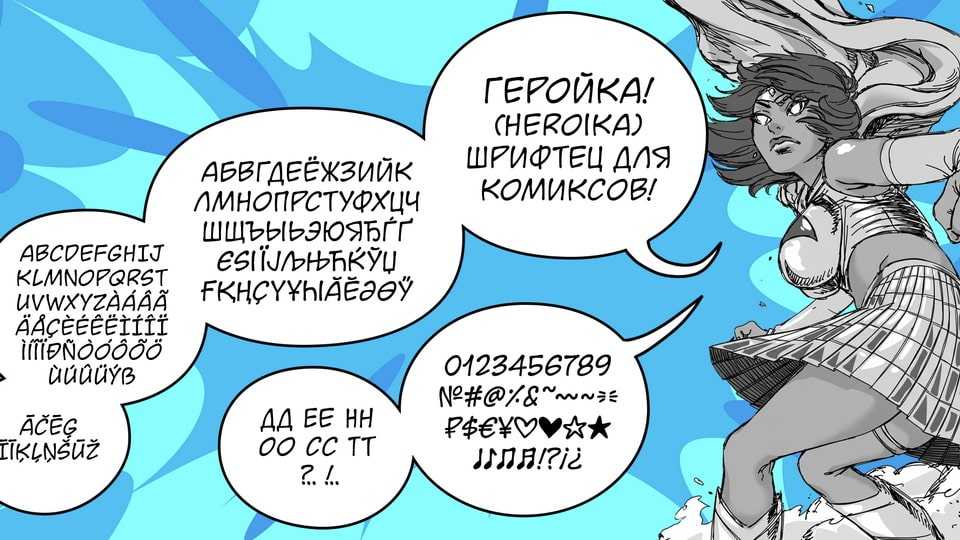
Download Heroika font, a fresh free typeface for comics. Dynamic. The font is based on a manuscript by the artist Albert De Guzman.
Designer: Namik Mardakhaev